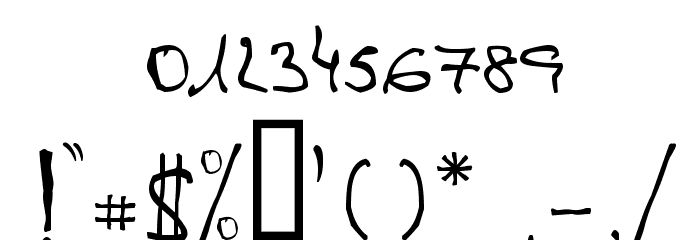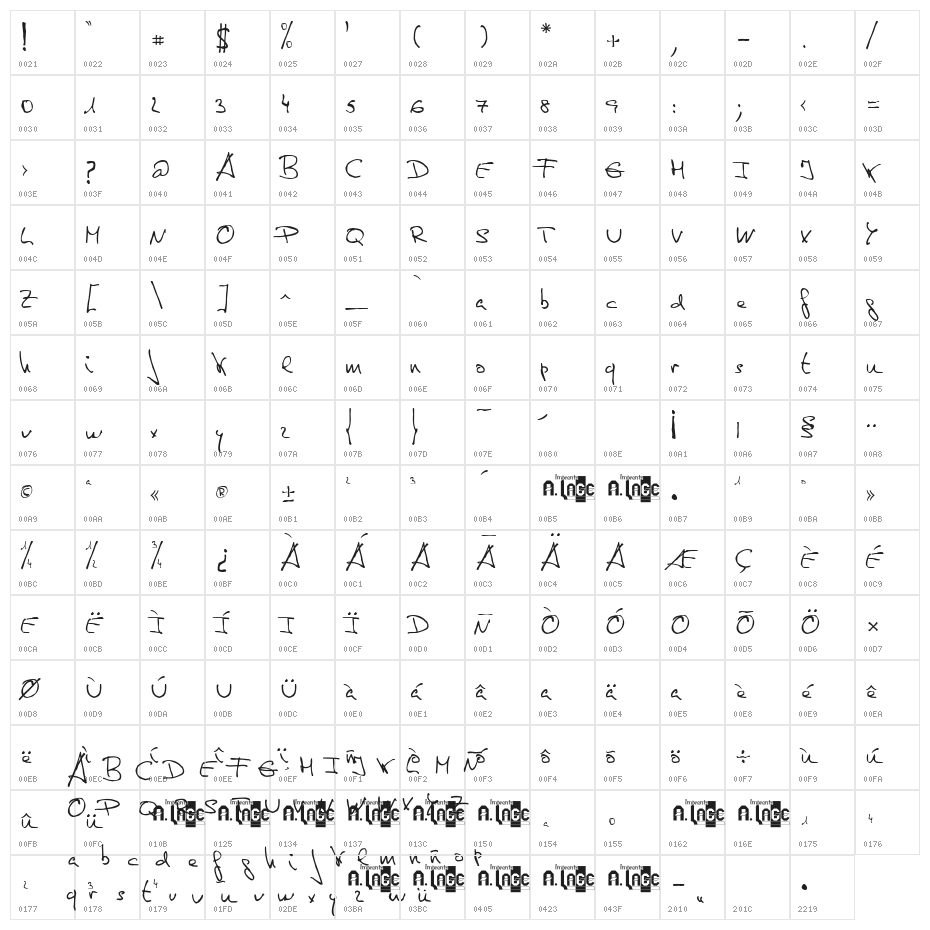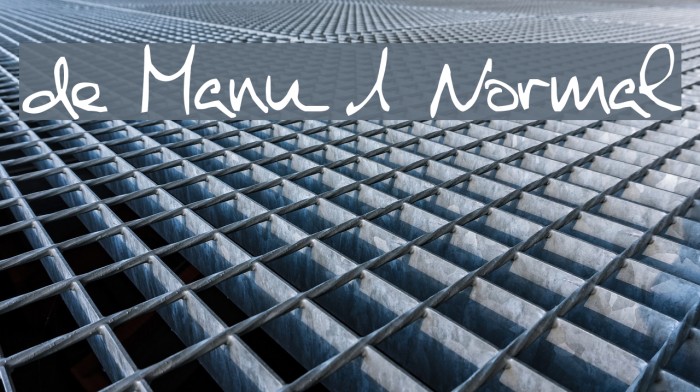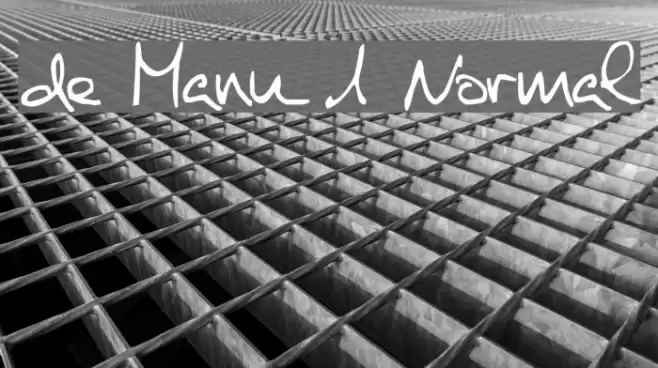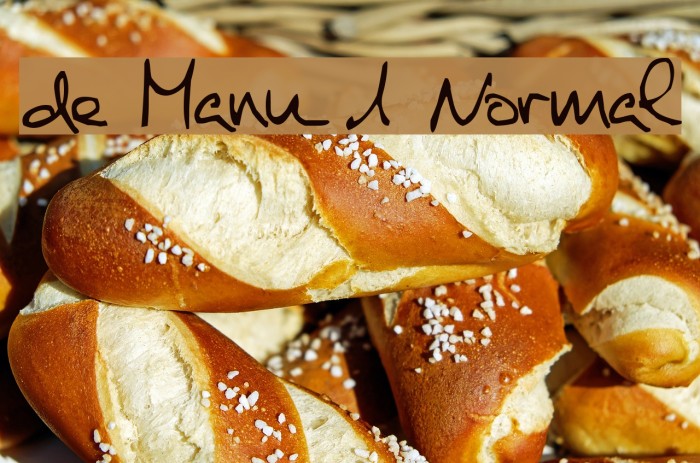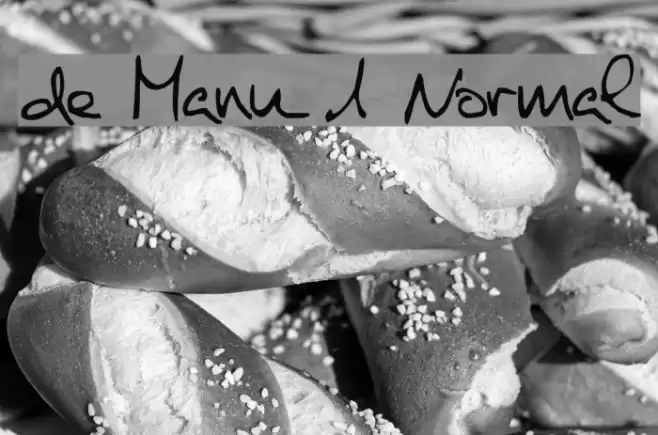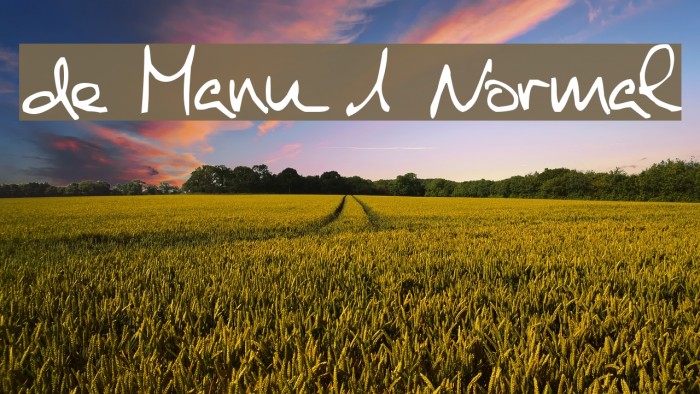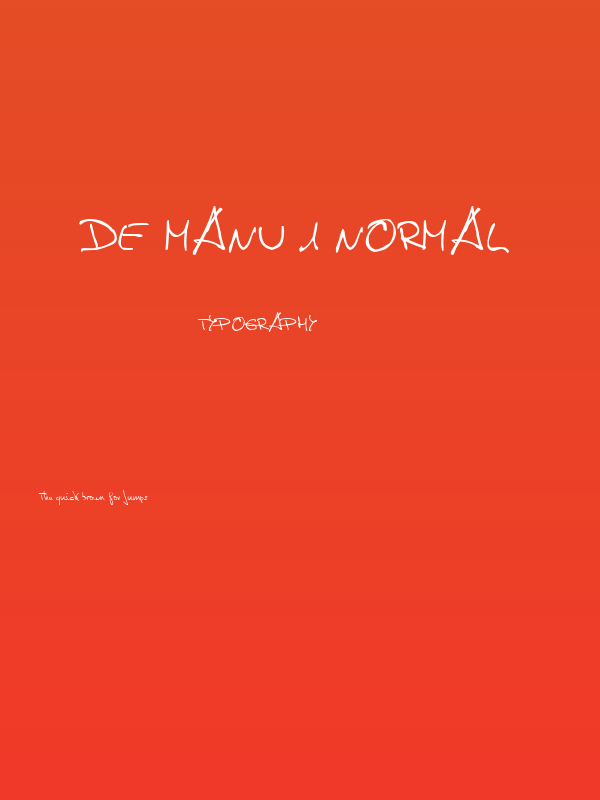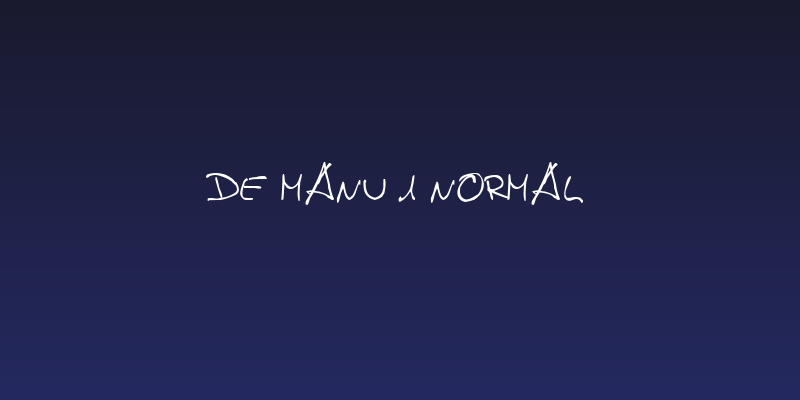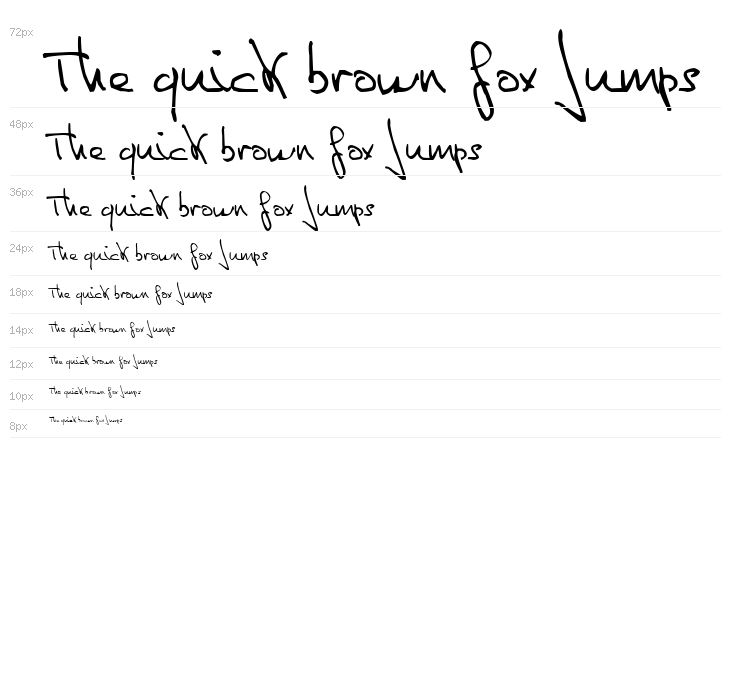
de Manu 1 Normal Font
de Manu 1 Normal Description
This font features a playful and casual handwritten style, characterized by its uneven strokes and informal appearance. The uppercase letters are bold and slightly slanted, giving a dynamic feel, while the lowercase letters maintain a consistent flow with a more relaxed structure. The numerals are distinct and easy to read, complementing the overall style. Special characters are creatively designed, adding to the font's unique personality. The font's organic and spontaneous look makes it suitable for projects that require a personal touch.
| Use Case | Logos, Invitations, Personal projects |
| Proposed Projects | Ideal for greeting cards, invitations, personal blogs, and creative branding projects. |